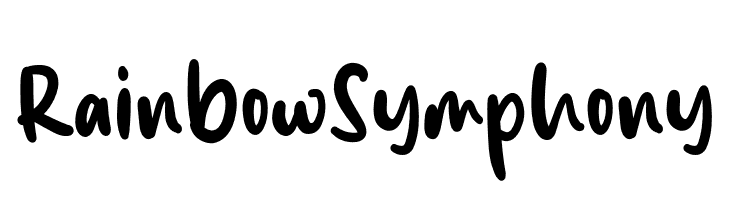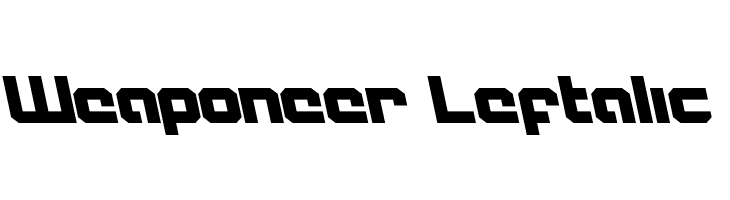
A bold, angular font with a geometric, modern design.
( Fonts by Andi Moz )
An elegant, flowing script font with tall, narrow letters and decorative swirls.
A bold, edgy font with sharp angles and dynamic strokes.
A sleek, modern, thin italic font with elongated letterforms.
( Fonts by Timur Type )
A playful, handwritten font with a casual and friendly style.
( Fonts by Viola Type )
Playful handwritten font with a casual style.
A playful, cloud-like decorative font with bold, rounded characters.
A bold, shadowed font with a futuristic and geometric design.
Modern sans-serif with semi-bold weight and excellent clarity.
( Fonts by Graham Meade - GemFonts )
A sleek, semi-bold, modern font with low contrast and geometric shapes.